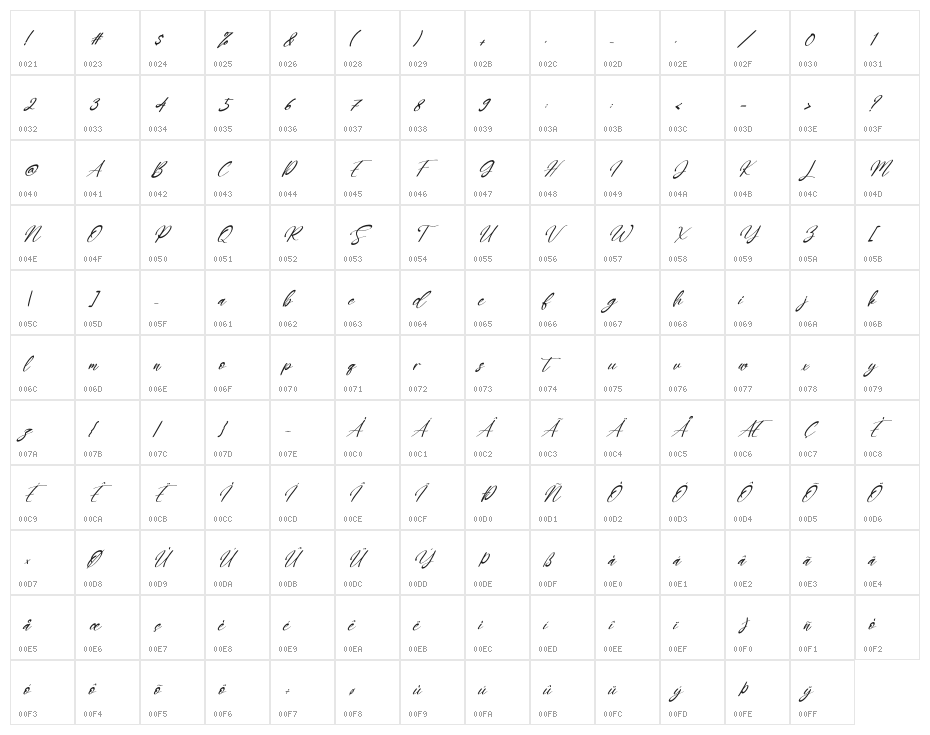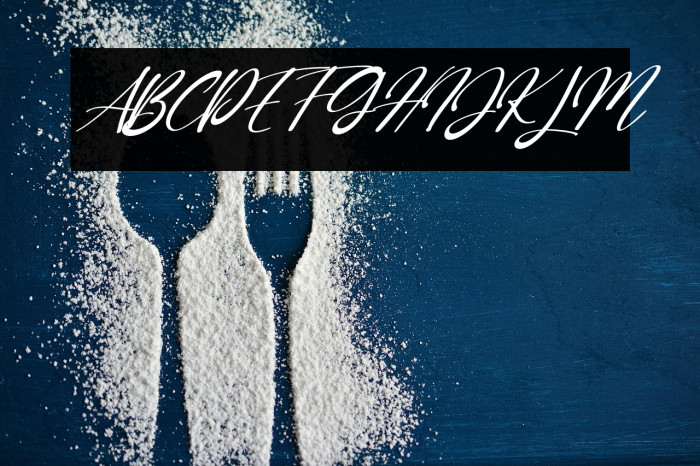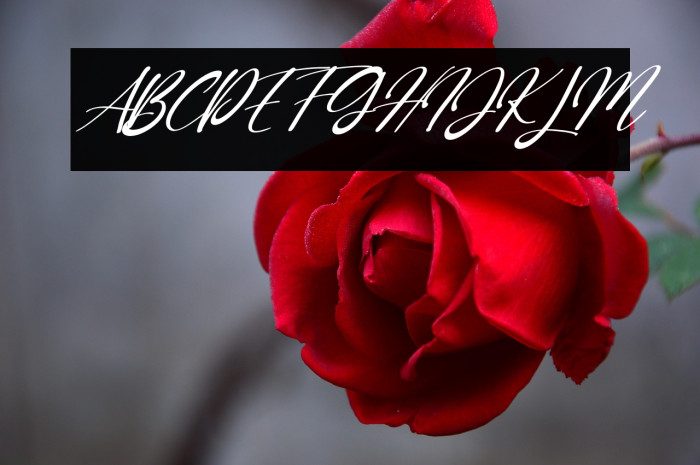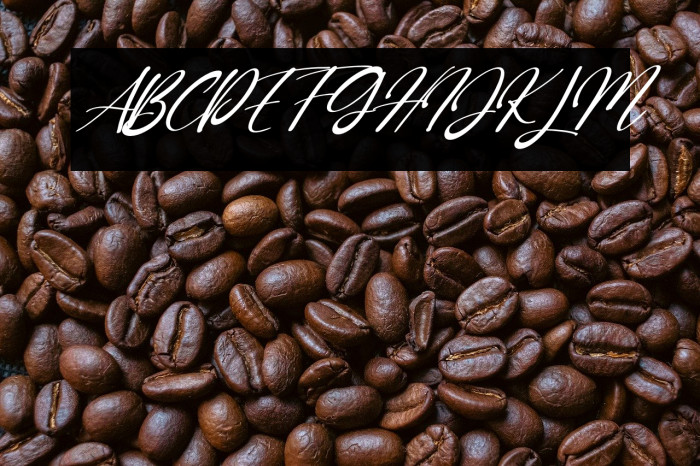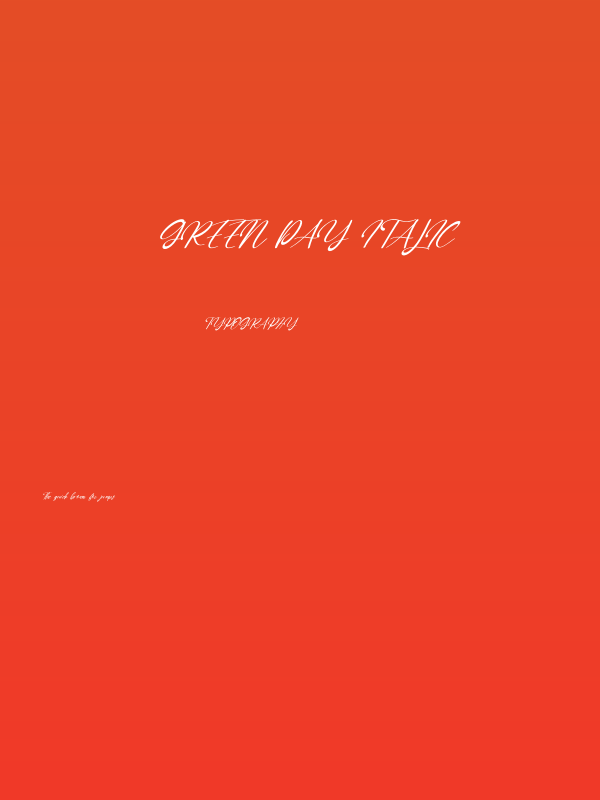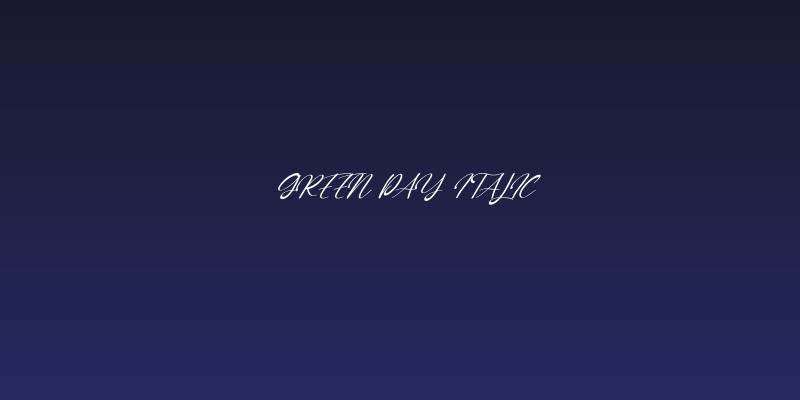
Green Day Italic Font
Green Day Italic Description
This font features an elegant, flowing script style with a distinct italic slant, giving it a dynamic and sophisticated appearance. The characters are crafted with smooth, continuous strokes that mimic the fluidity of handwriting, making it ideal for conveying a personal touch. The uppercase letters are bold and prominent, while the lowercase letters maintain a graceful and consistent flow. The numerals and special characters are designed to complement the overall aesthetic, ensuring a cohesive look across all text elements. This font is perfect for projects that require a touch of elegance and personality.
| Proposed Projects | Wedding invitations, greeting cards, branding, and logo design. |